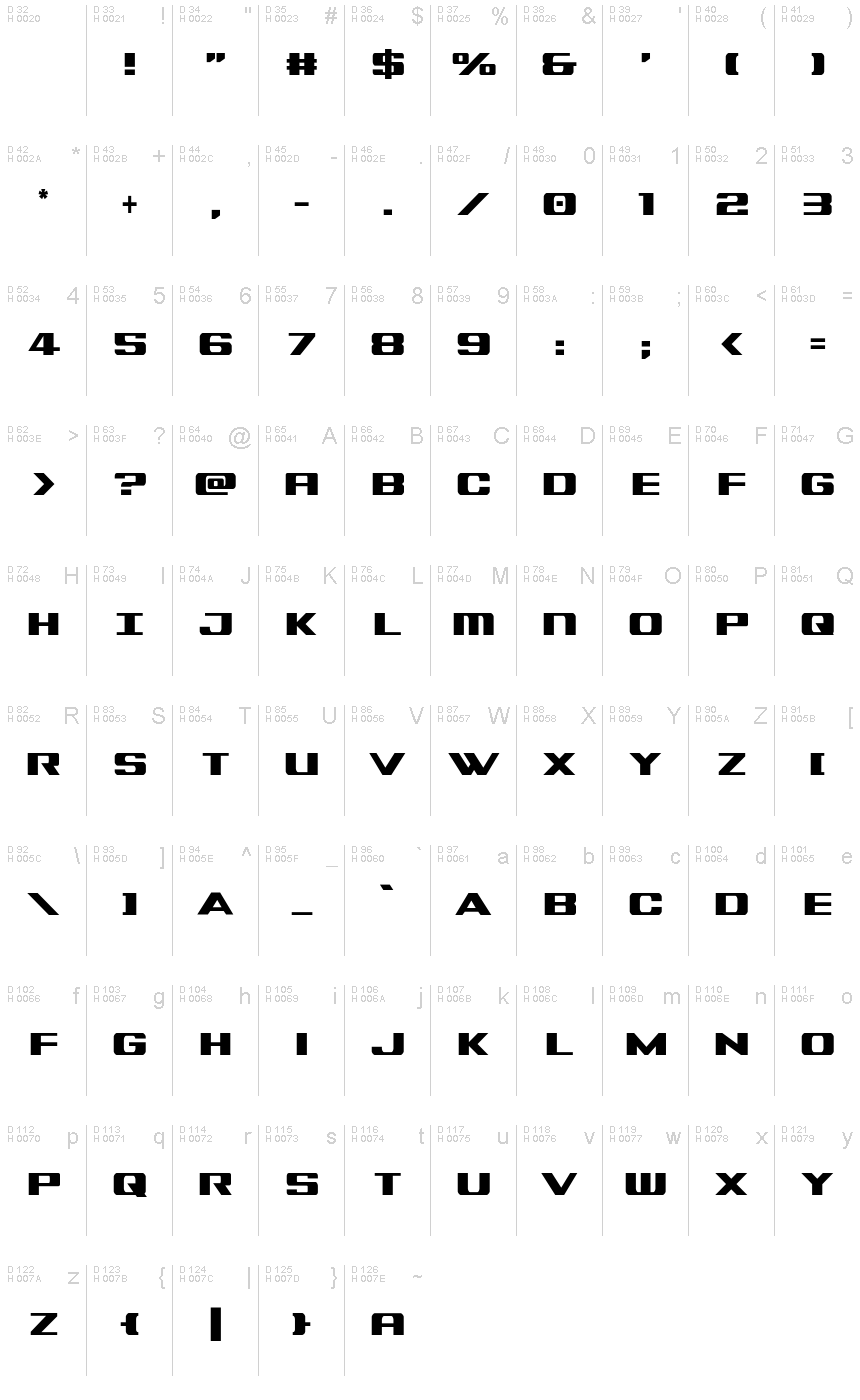
Tigershark Condensed, designed by Iconian Fonts in 2024, is a free modern display font with a hard-edged, futuristic build. Dense letters use squared curves, deep cut-ins, and sharply angled joins.
It can turn a title into a compact badge for motorsport posters and science-fiction game graphics. The aggressive geometry also suits electronic music artwork and athletic merchandise tied to speed and machinery. For technology brands, the lettering can become the core of a tough, engineered product identity.